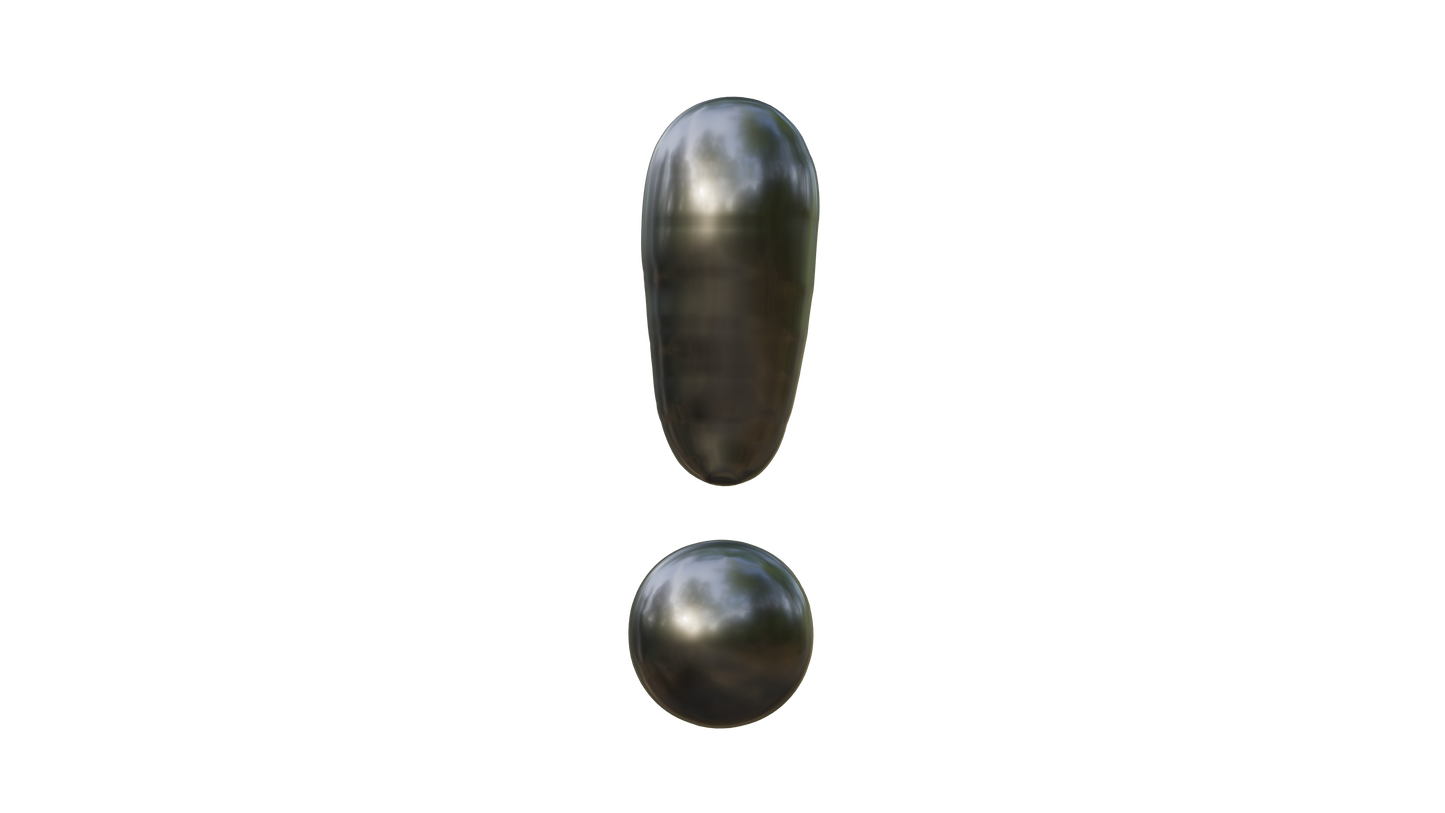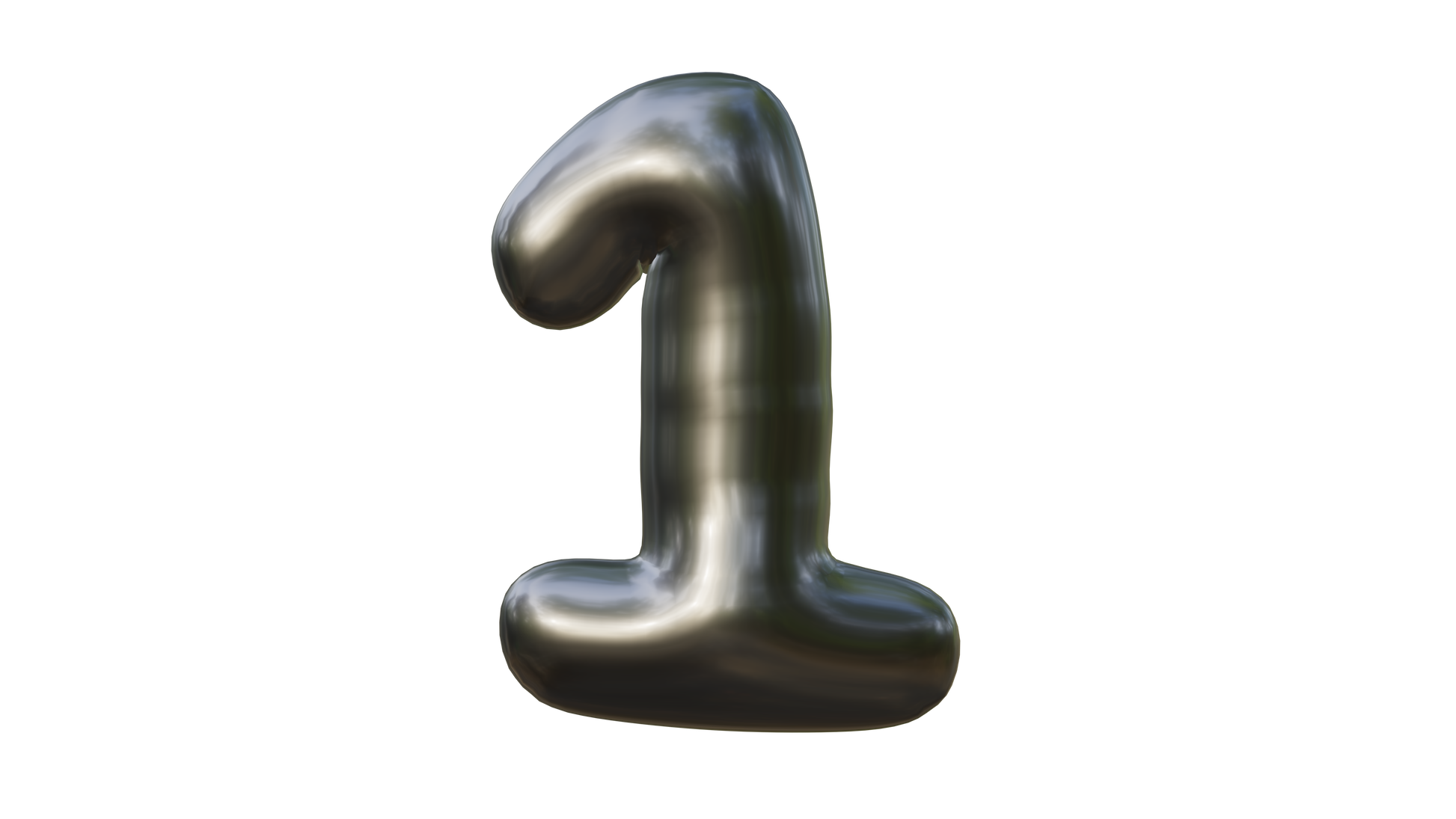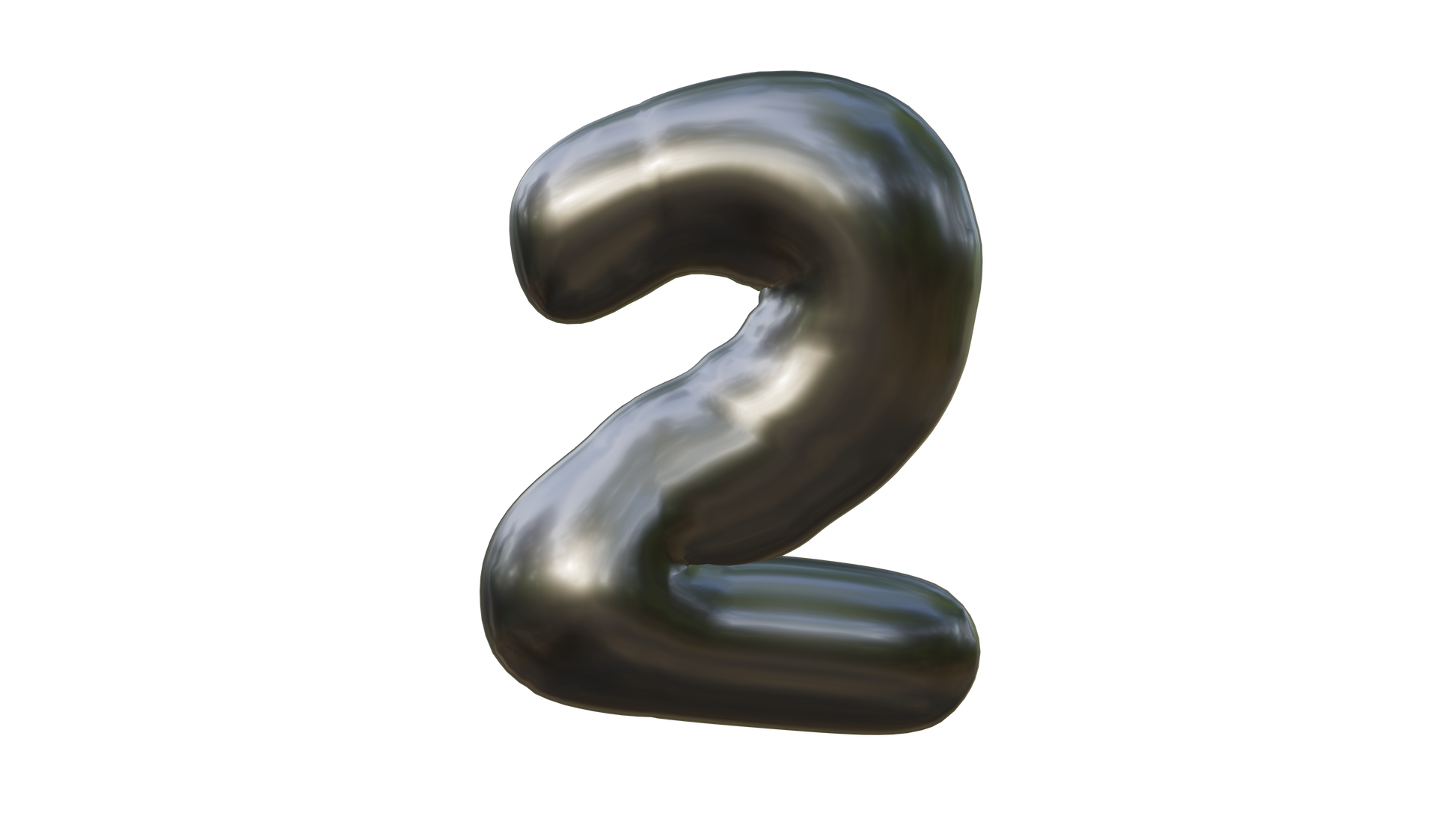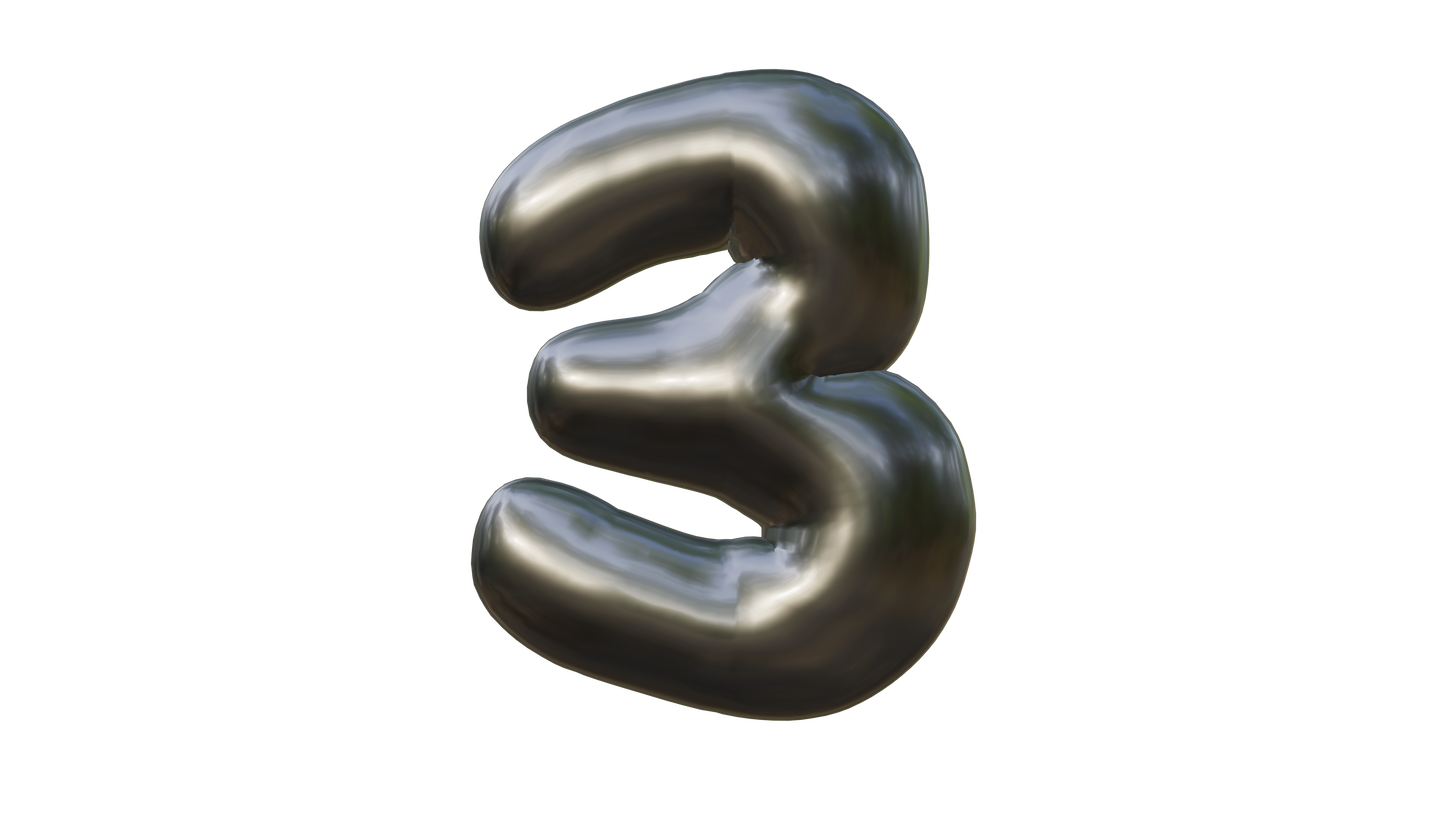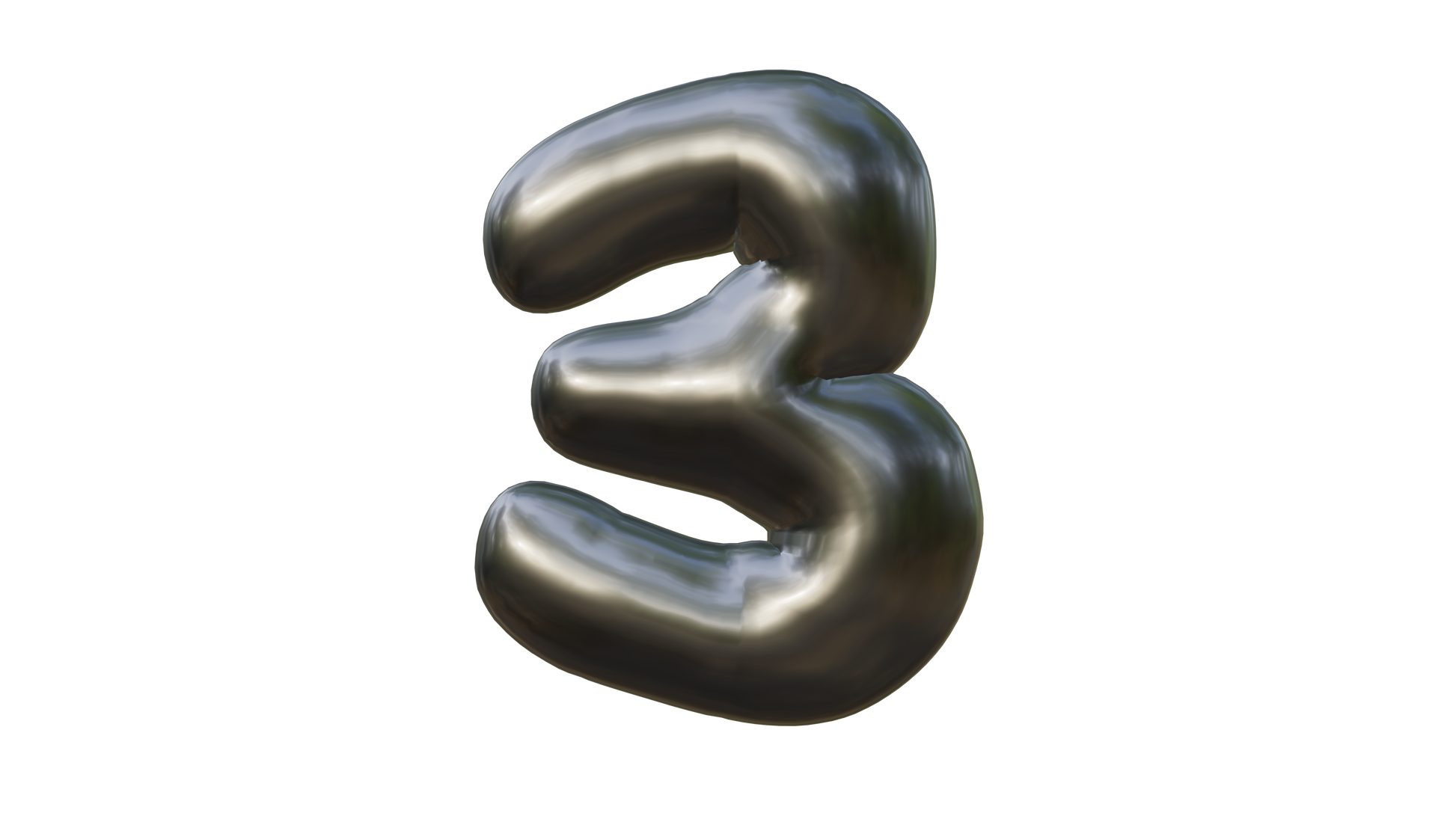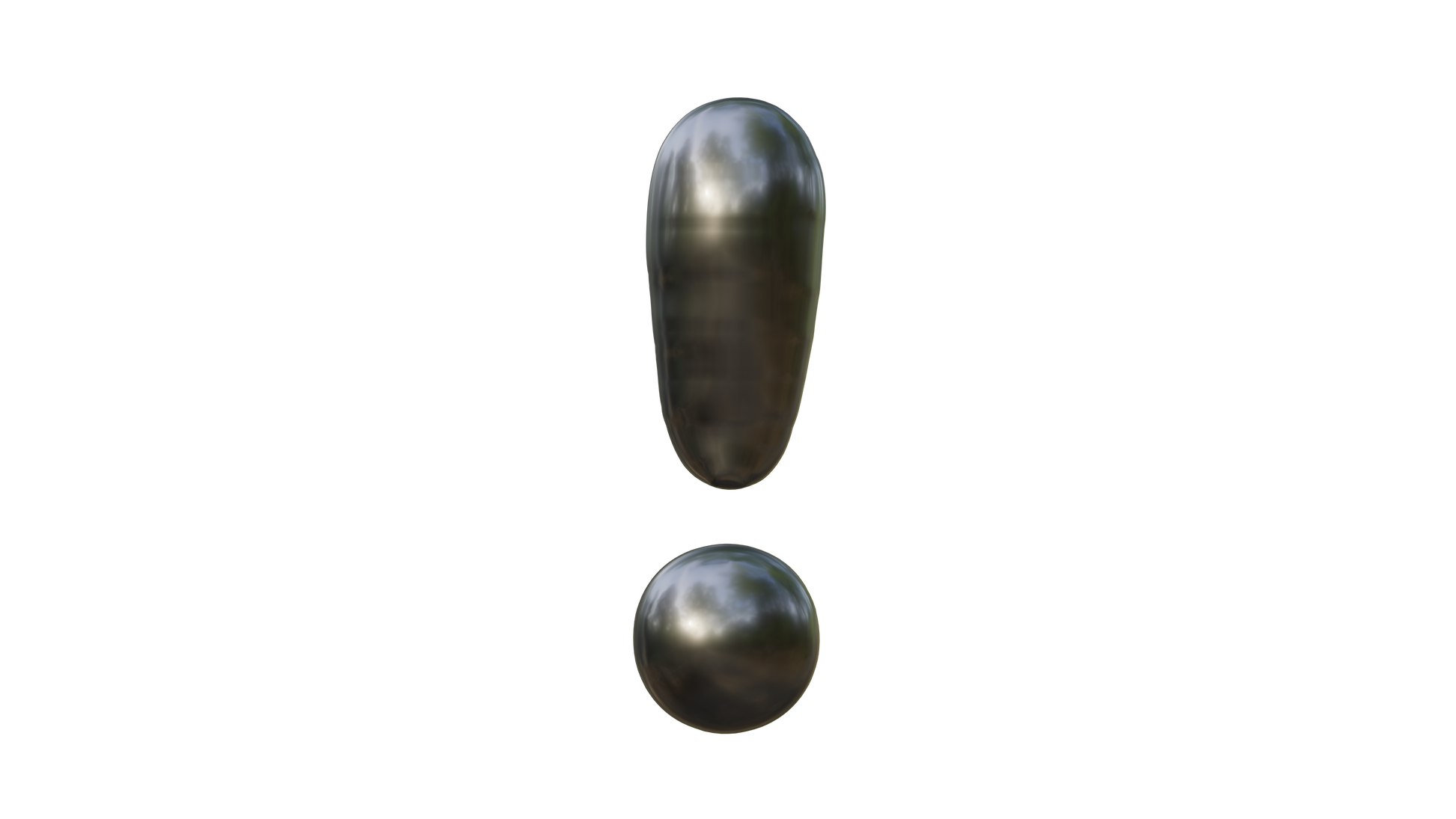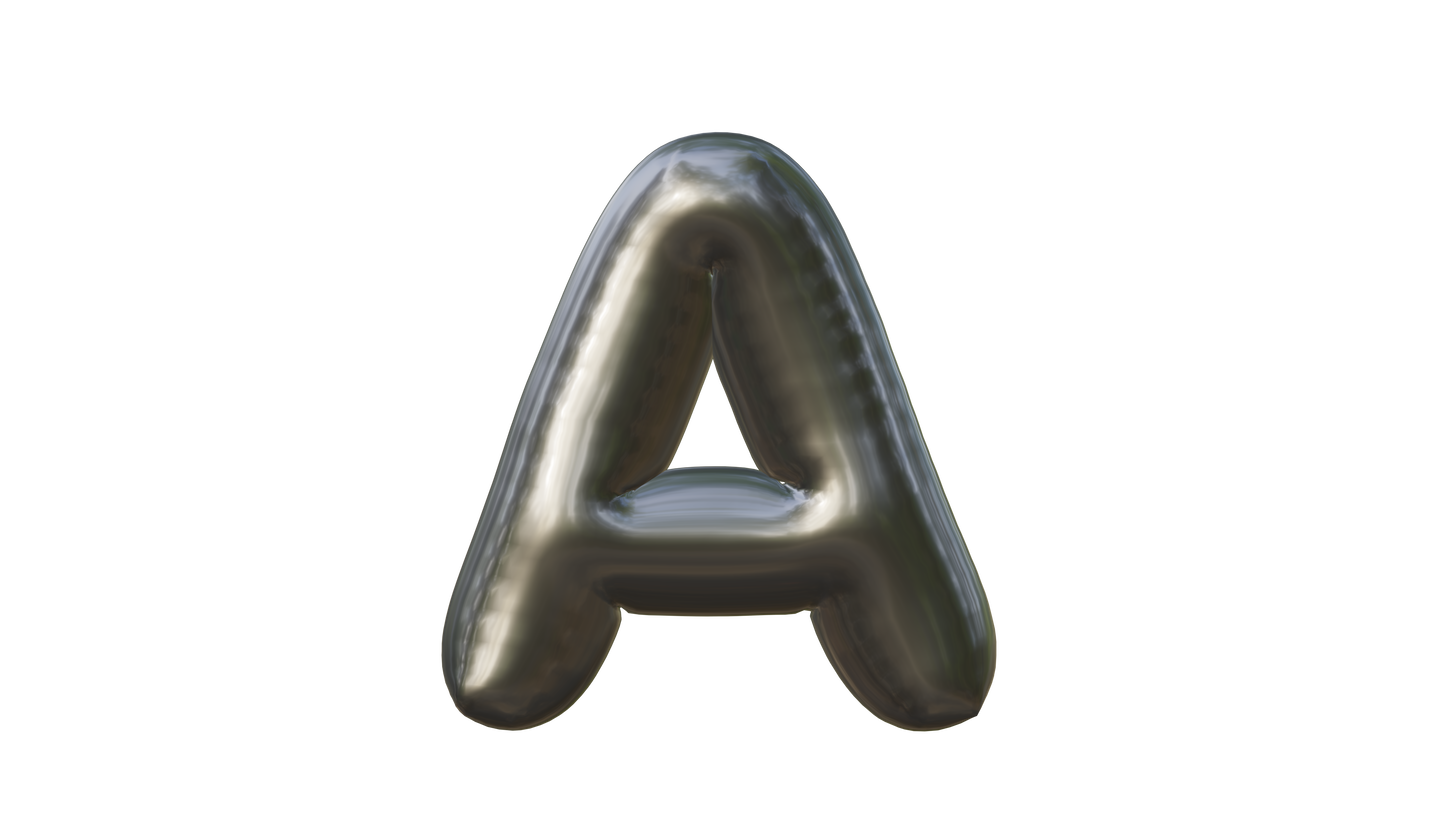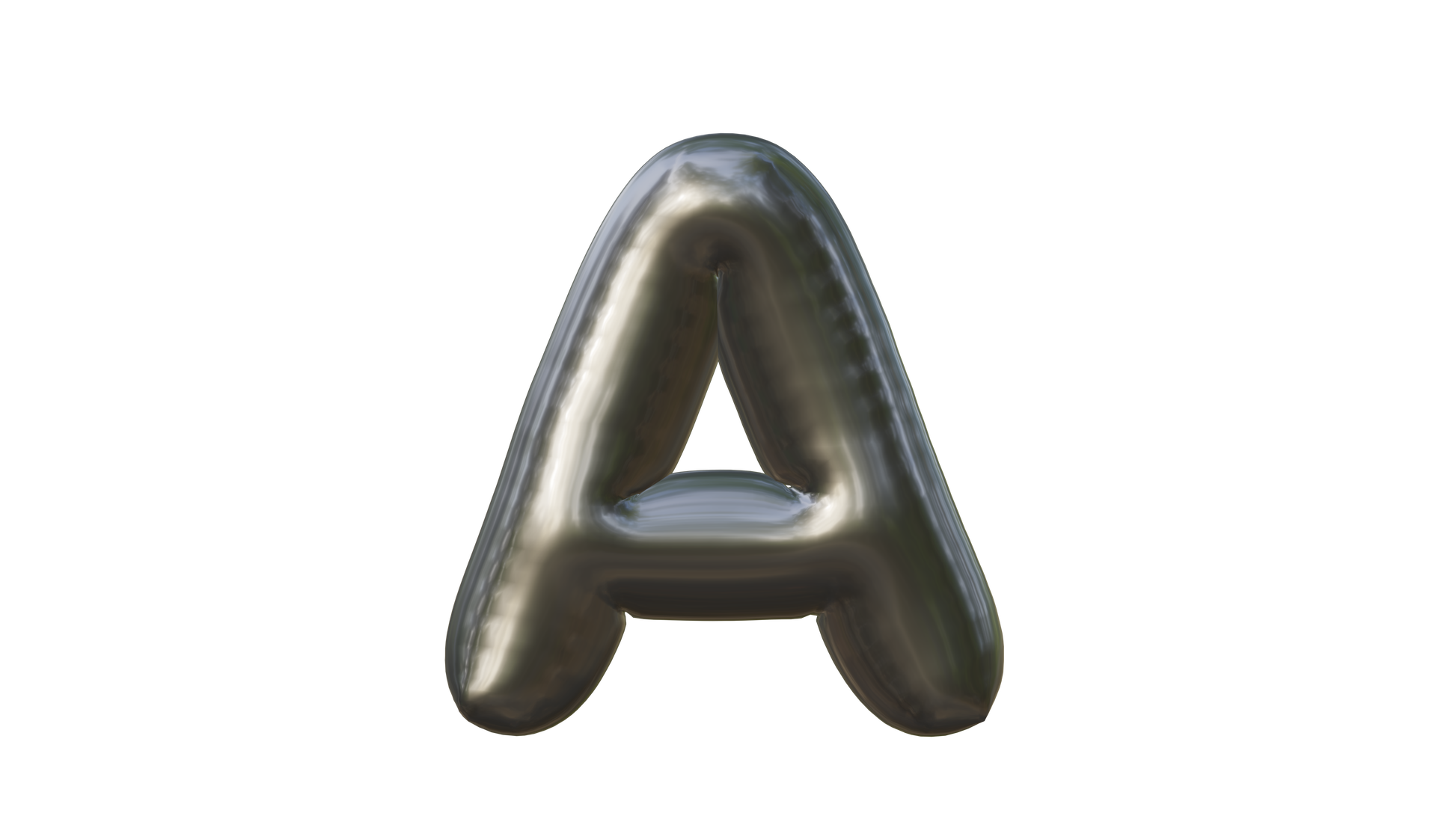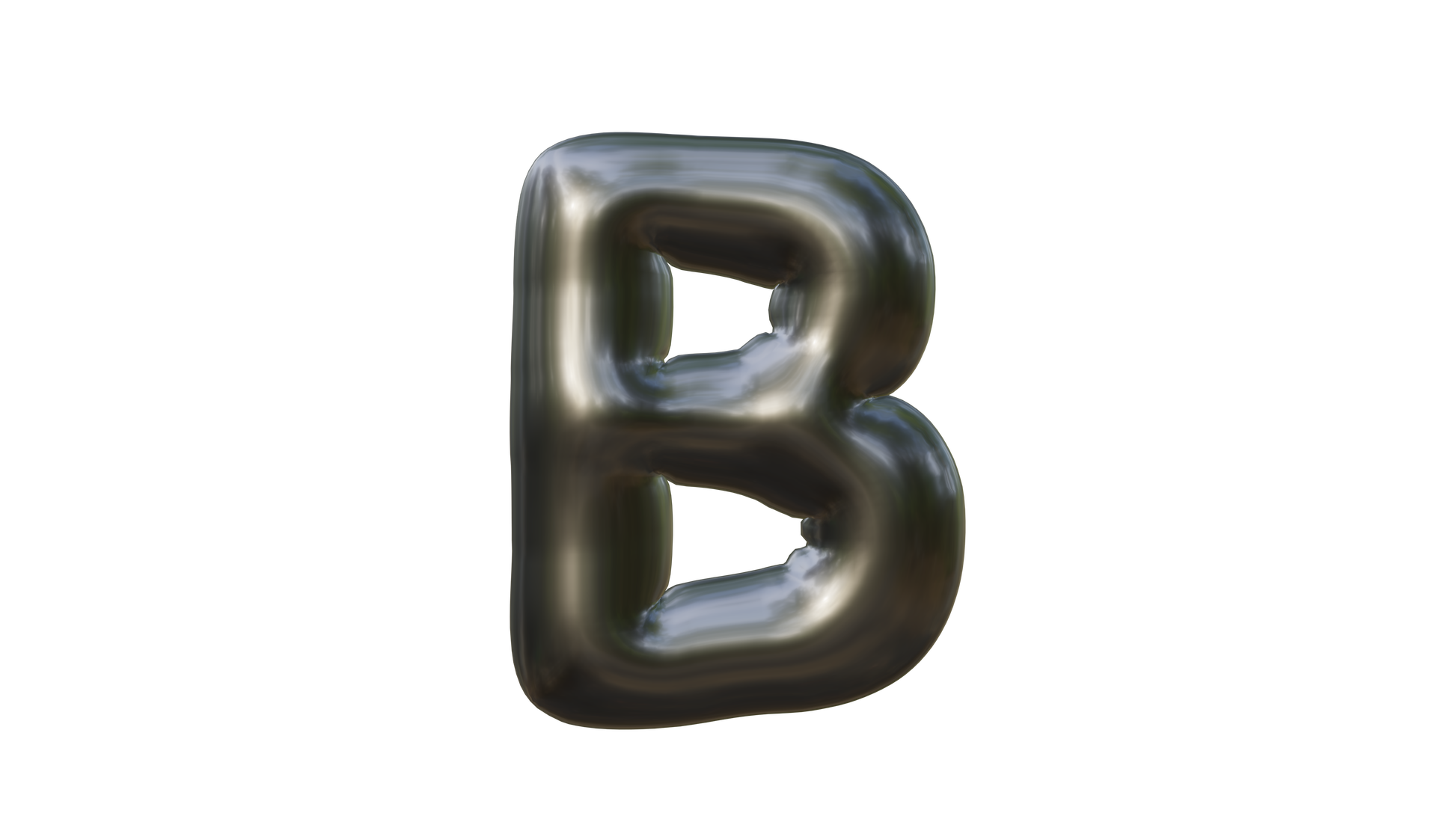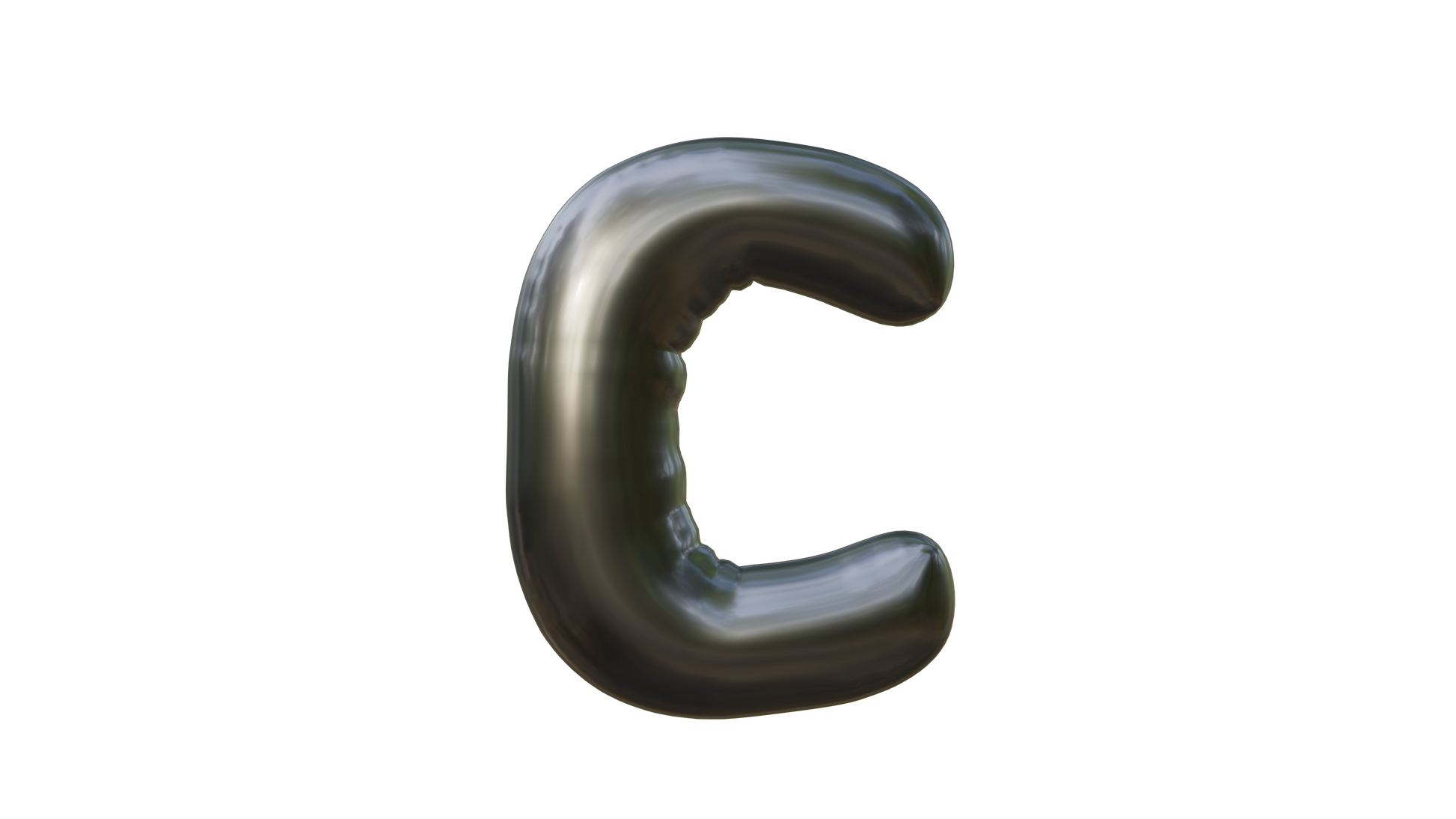
Ultimate 3D Balloon Font Pack
Instantly upgrade your edits with this Ultimate Balloon Font Pack — fast, simple & easy.
- 42 High Quality 4K PNG Images of Letters, Numbers and Symbols